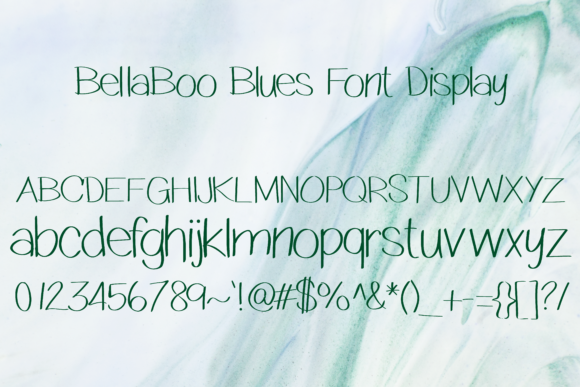
BellaBoo Blues Font: Add a Touch of Elegance to Your Design Projects
BellaBoo Blues is a stunningly rounded and light font that can add a beautiful charm to any design project. This lovely font is perfect for designers and crafters who want to create visually appealing and engaging content. In this article, we’ll explore the features and benefits of BellaBoo Blues Font and how it can elevate your design projects.
What is BellaBoo Blues Font?
BellaBoo Blues Font is a unique and elegant font that is designed to add a touch of sophistication to your designs. Its rounded and light style gives it a playful and whimsical feel, making it perfect for a wide range of design projects, from branding and advertising to crafting and DIY projects.
Key Features of BellaBoo Blues Font
• Rounded and Light Style: BellaBoo Blues Font features a rounded and light style that gives it a soft and elegant look.
• Highly Readable: The font is designed to be highly readable, making it perfect for use in body text, headings, and titles.
• Versatile: BellaBoo Blues Font is a versatile font that can be used in a wide range of design projects, from digital designs to print materials.
Benefits of Using BellaBoo Blues Font
Using BellaBoo Blues Font in your design projects can have numerous benefits. Here are a few:
• Adds a Touch of Elegance: BellaBoo Blues Font can add a touch of elegance and sophistication to your designs, making them stand out from the crowd.
• Enhances Readability: The font’s high readability makes it perfect for use in body text, headings, and titles, ensuring that your message is communicated clearly.
• Increases Engagement: The font’s playful and whimsical feel can help increase engagement and interaction with your audience.
• Perfect for Branding: BellaBoo Blues Font is perfect for use in branding and advertising projects, helping to create a consistent and recognizable visual identity.
How to Use BellaBoo Blues Font in Your Design Projects
Using BellaBoo Blues Font in your design projects is easy. Here are a few tips:
• Pair it with Other Fonts: BellaBoo Blues Font can be paired with other fonts to create a unique and visually appealing combination.
• Use it in Headings and Titles: The font is perfect for use in headings and titles, adding a touch of elegance and sophistication to your designs.
• Experiment with Colors: BellaBoo Blues Font can be used with a wide range of colors, so don’t be afraid to experiment and find the perfect combination for your design.
BellaBoo Blues Font is a stunningly rounded and light font that can add a beautiful charm to any design project. Its unique features, versatility, and ease of use make it perfect for designers and crafters of all skill levels. Whether you’re working on a branding project, crafting a DIY project, or creating digital designs, BellaBoo Blues Font is a great choice. So why not give it a try and see how it can elevate your design projects?